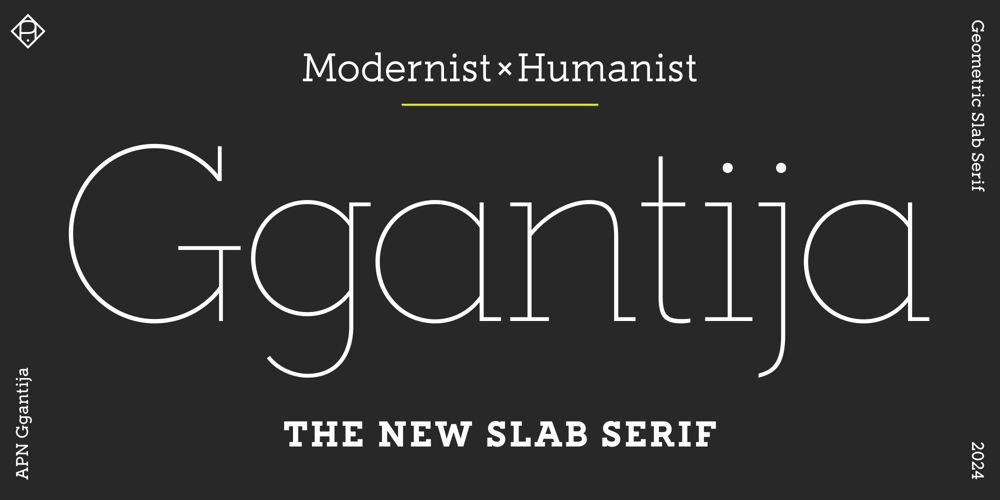
APN Ggantija
APN Ggantija font
APN Ggantija Font Family was designed by Patrick Nell and published by Alphabets Patrick Nell. APN Ggantija contains 18 styles and family package options. APN Ggantija is a postmodern, geometric, monolinear slab serif with semi-humanistic lowercase forms and true italics. It features a generous x-height and open apertures for good legibility in long blocks of text. And it’s also a versatile display typeface that can be used for headlines, subheads and anywhere demanding a strong presence. APN Ggantija offers extensive OpenType support and includes small caps, ligatures, multiple figure and stylistic sets, alternative glyphs, fractions, mathematical symbols and arrows. APN Ggantija supports a wide range of languages, including all European languages written in the Latin script, and comes in 16 styles and 2 variable fonts.From Industrial Revolution to Modernism and BeyondSlab serif typefaces first appeared in the early nineteenth century as a product of the Industrial Revolution’s growing demand for bold fonts to advertise the new consumer goods.Roughly a century later, during the interwar period, a first revival of the “Egyptians”, as these faces were misleadingly called, emerged. They now generally displayed less stroke contrast and embraced a more geometric aesthetic, akin to their contemporary sans serif counterparts.Embodying modernist ideals of clarity and functionality, these were sleek, architectural designs, austere, intentionally monolithic, and sometimes of brutalist elegance, seemingly owing more to the compass and the ruler than to the pen. This was the starting point of APN Ggantija.During the late 1960s to late 1970s, a second revival took place, when Adrian Frutiger and Herb Lubalin released their interpretations of slab serif typefaces. From this period, APN Ggantija inherits its rather large x-height.However, since the geometrically constructed modernist typefaces turned out to be not that functional after all, APN Ggantija also incorporates certain features of humanist faces. These features, along with some alternative glyphs, significantly improve legibility and readability, even in surprisingly small sizes. Consequently, APN Ggantija can be used not only as a display typeface but also excels in body text settings, be it in the analog or digital realm, across various genres and registers.Furthermore, unlike most of today’s slabs, APN Ggantija is not simply based on a pre-existing sans with slabs slapped on. Instead, it’s a purposefully drawn slab, created from the ground up. And, unlike most older typefaces in this category, APN Ggantija includes fully featured true italics.But Why “Ġgantija”?I started working on APN Ggantija during a stay on the Maltese island of Gozo, in an apartment nearly within walking distance of the megalithic temple complex of the same name. These UNESCO World Heritage Site temples rank among the earliest free-standing stone buildings and amongst the oldest existing man-made religious structures in the world, with over 5,500 years of age, predating the Egyptian pyramids by a millennium.The temple’s façade and internal walls consist of upright limestone slabs, topped by horizontal stone blocks. When designing a typeface named like this structure, what category more fitting than a—quite blocky—slab serif?And then of course there’s the name itself, “Ġgantija”, the giantess: To some ears she might sound exotic (pronounced roughly “Juh-gan-tee-ya”), even more exotic probably than the Egyptian sites and cities the early “Egyptian” typefaces were curiously named after…(PN)General Properties• Large x-height for rendering text more evenly, especially in languages with many uppercase letters like German• Comparatively open apertures to further improve the reading experience, particularly in smaller sizes and body text• Optically corrected monolinear strokes and geometric core shapes, with mostly static letterforms but a subtle calligraphic (broad nib pen) influence in the lowercase terminals• Lowercase curves exhibit an angular transition into the stem, with asymmetrical arches, referencing Renaissance antiquas• Uppercase letters with harmonized modern proportions, rather than following a strict classical (Roman) formal model• True, semi-serifed Italics with rounded transitions and round counters (letters with stems and bowls), based on a rationalized “script” model• All glyphs, features, and the widths of tabular numbers are consistent across all styles, including italics, an additional alternative “k” is available in the italics• Letter spacing favours a steady rhythm over pronounced tightness, thus leading from the 1970s into the 21st century• The spacing of the lighter weights is optimized for large (display, headline) settings and is therefore rather dense, while the heavier weights are spaced more generously as they will also be used to emphasize parts of (small) body text• The distribution of weights follows the Impallari progression, resulting in visually consistent